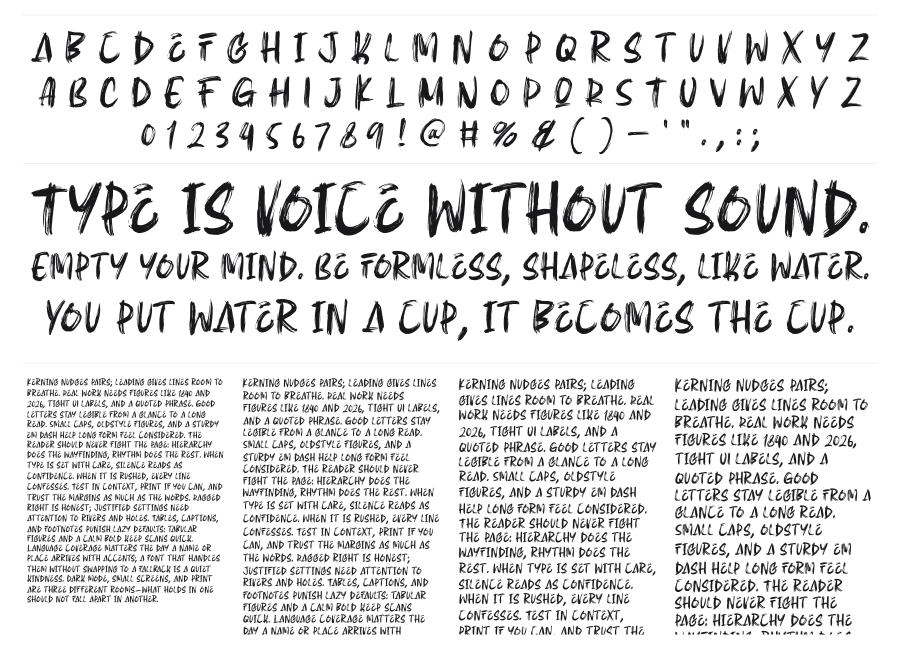
Earth Theory
Earth Theory is a bold, heavily textured brush script with a raw, hand-painted edge. Bristle marks and dry-brush fraying give each stroke a live, energetic feel that reads instantly at large sizes. The rough-hewn quality suits outdoor brands, music projects, and anything that benefits from a sense of unfiltered human touch.